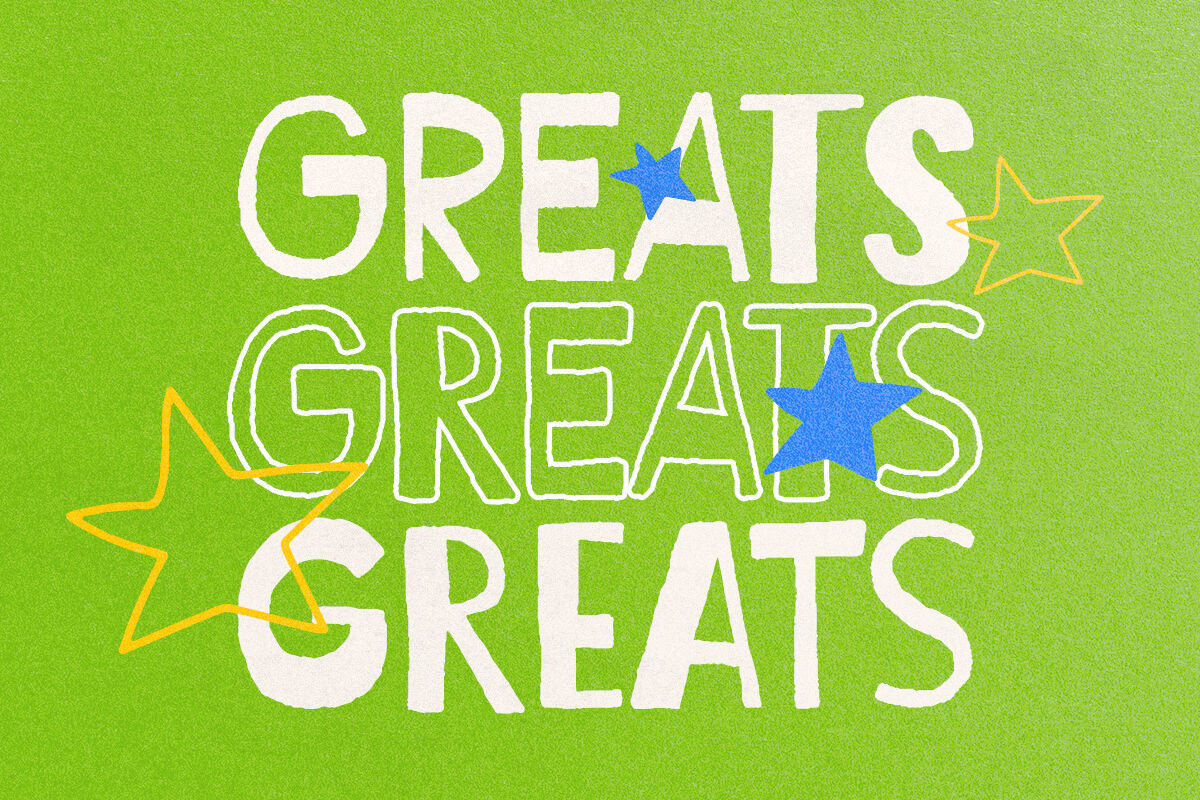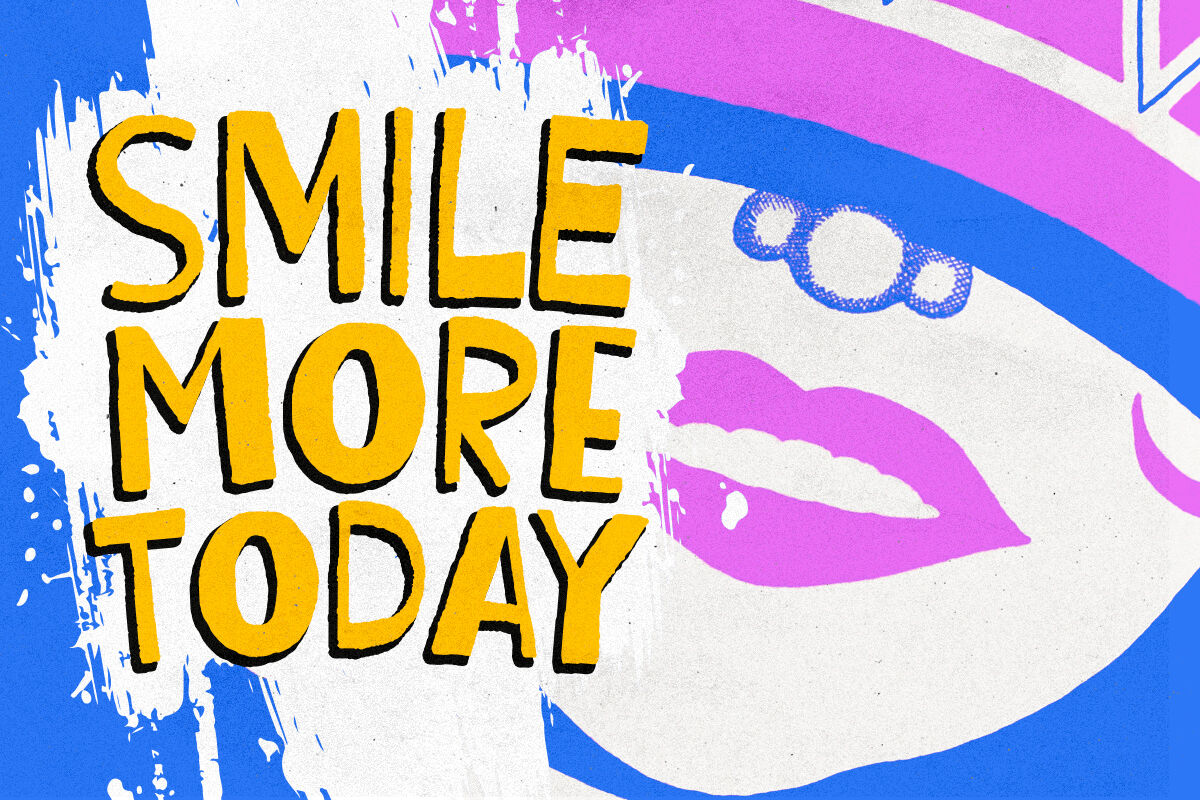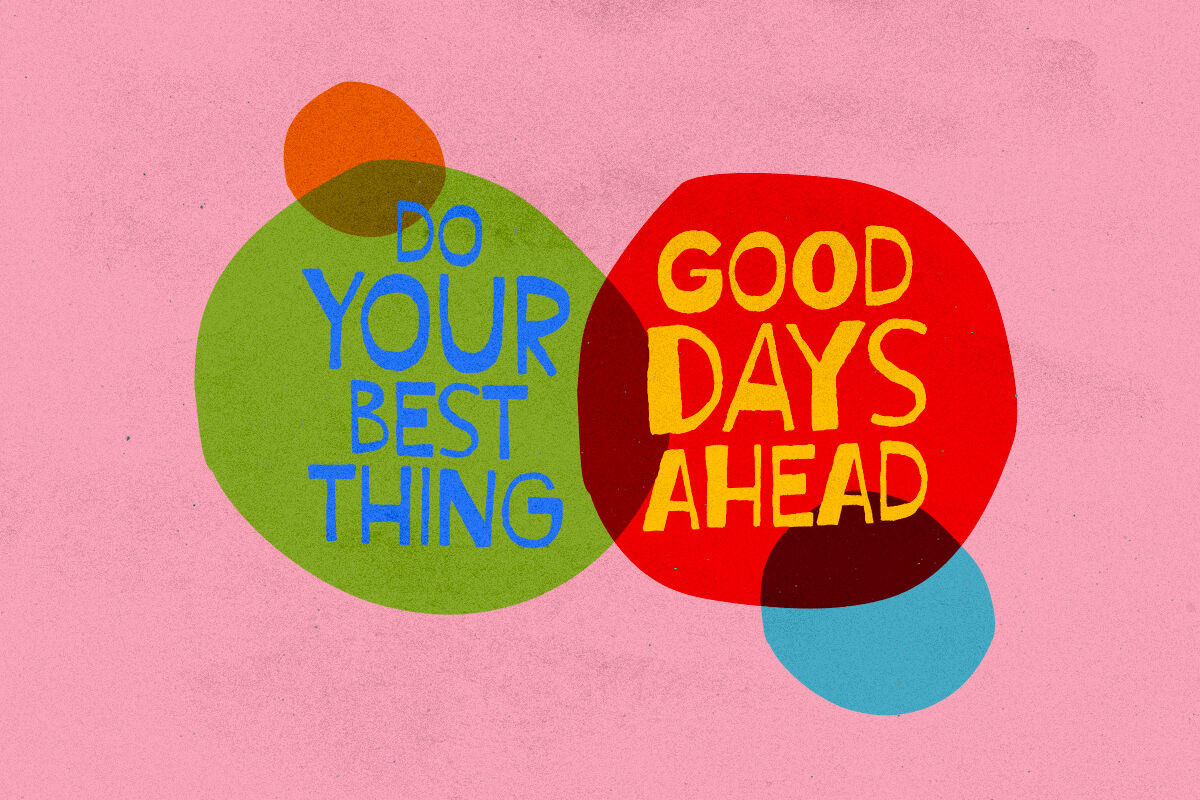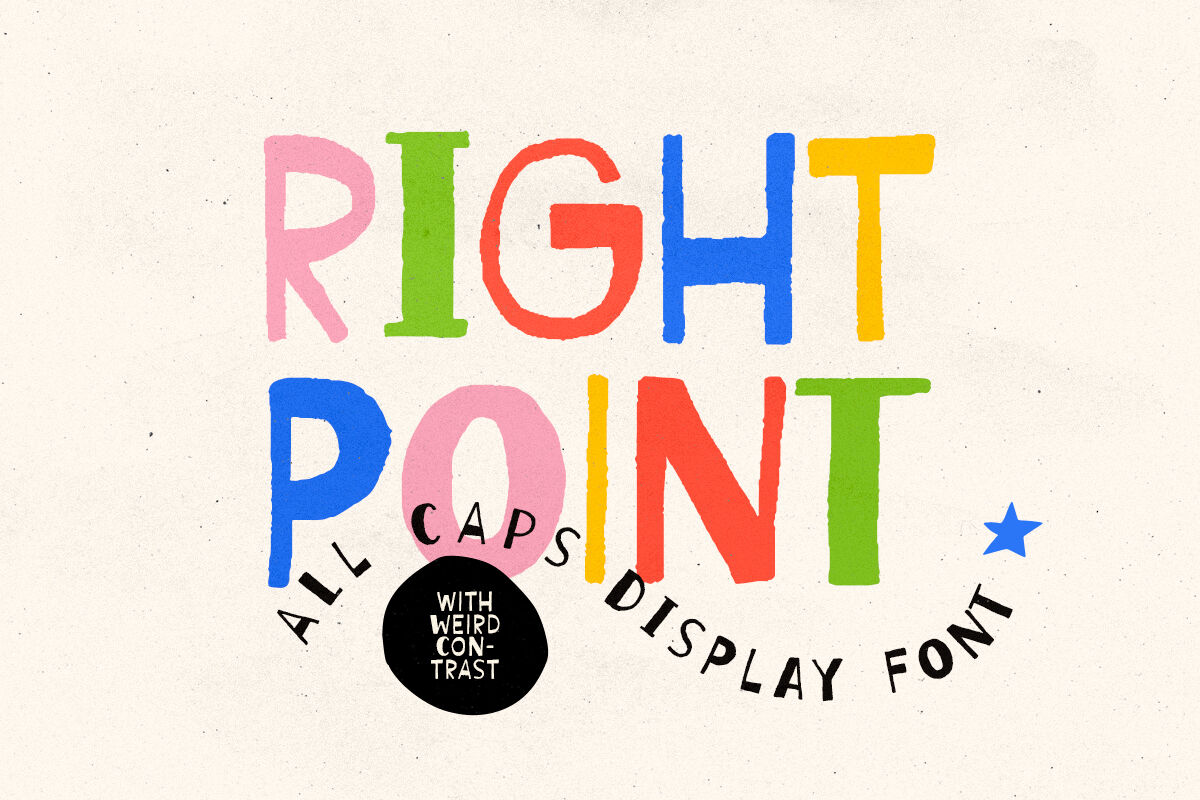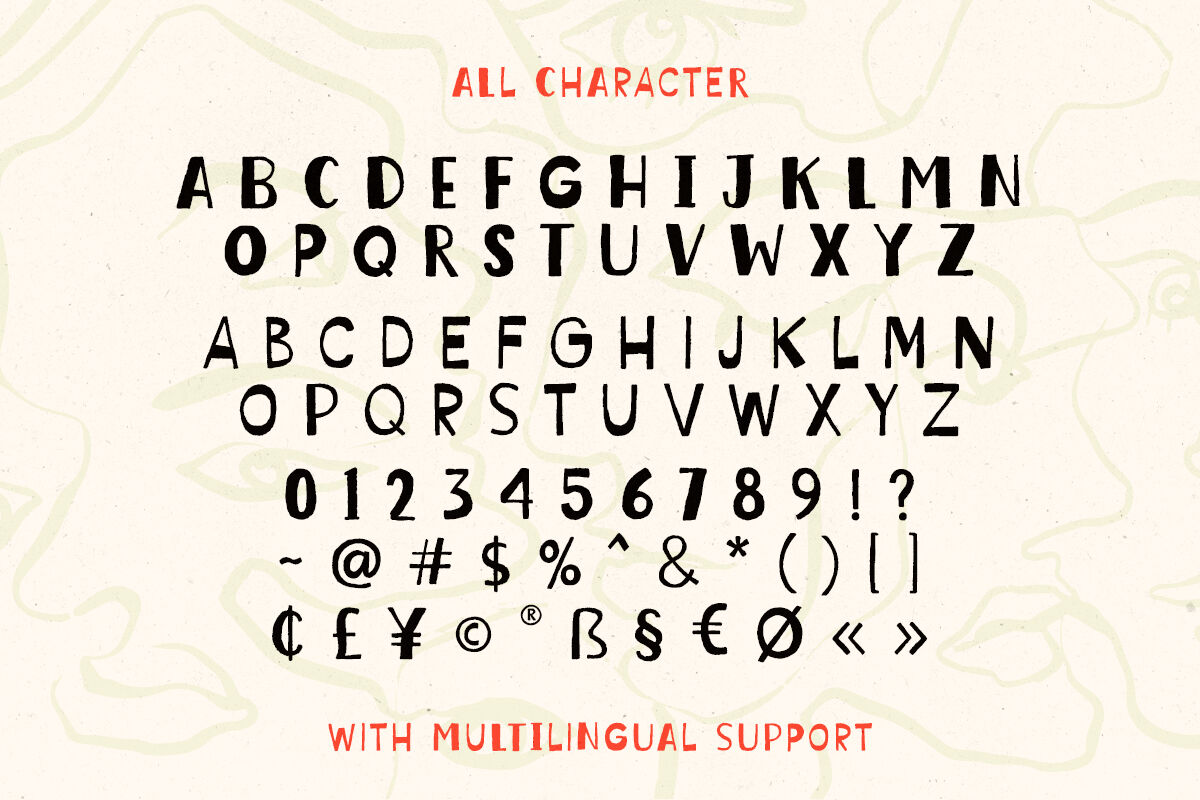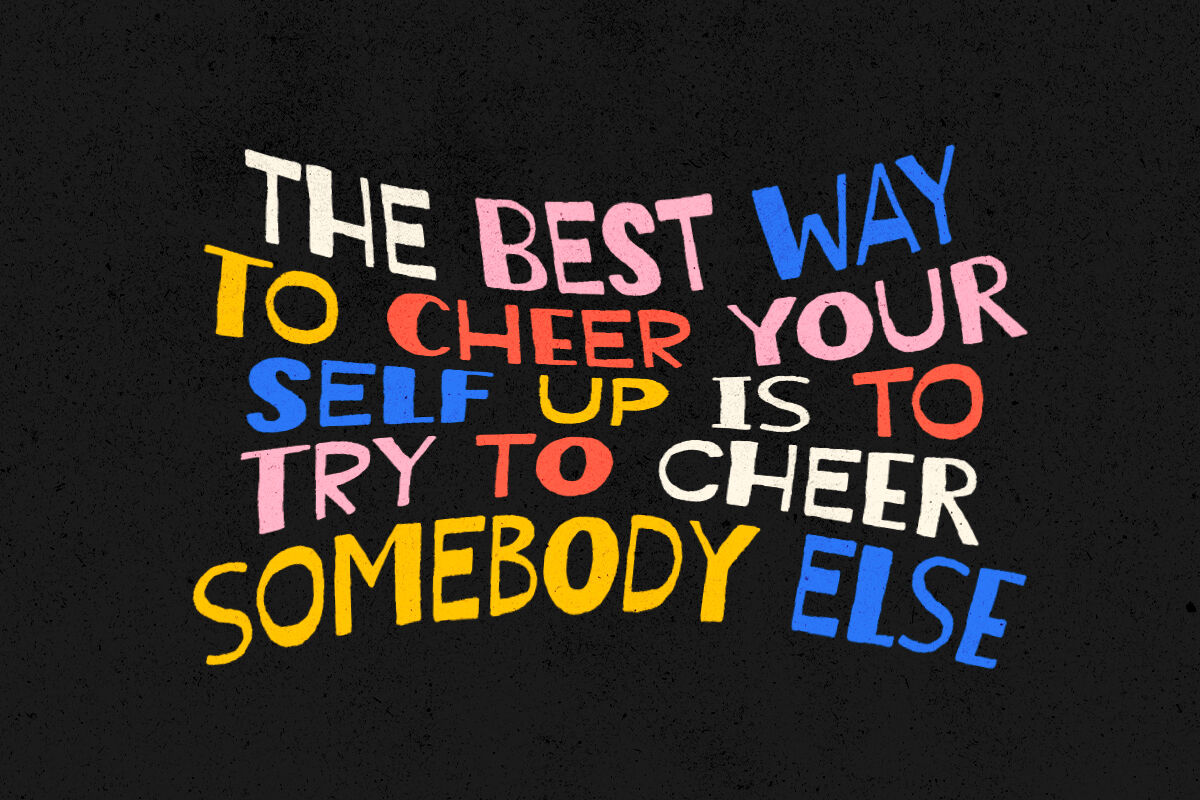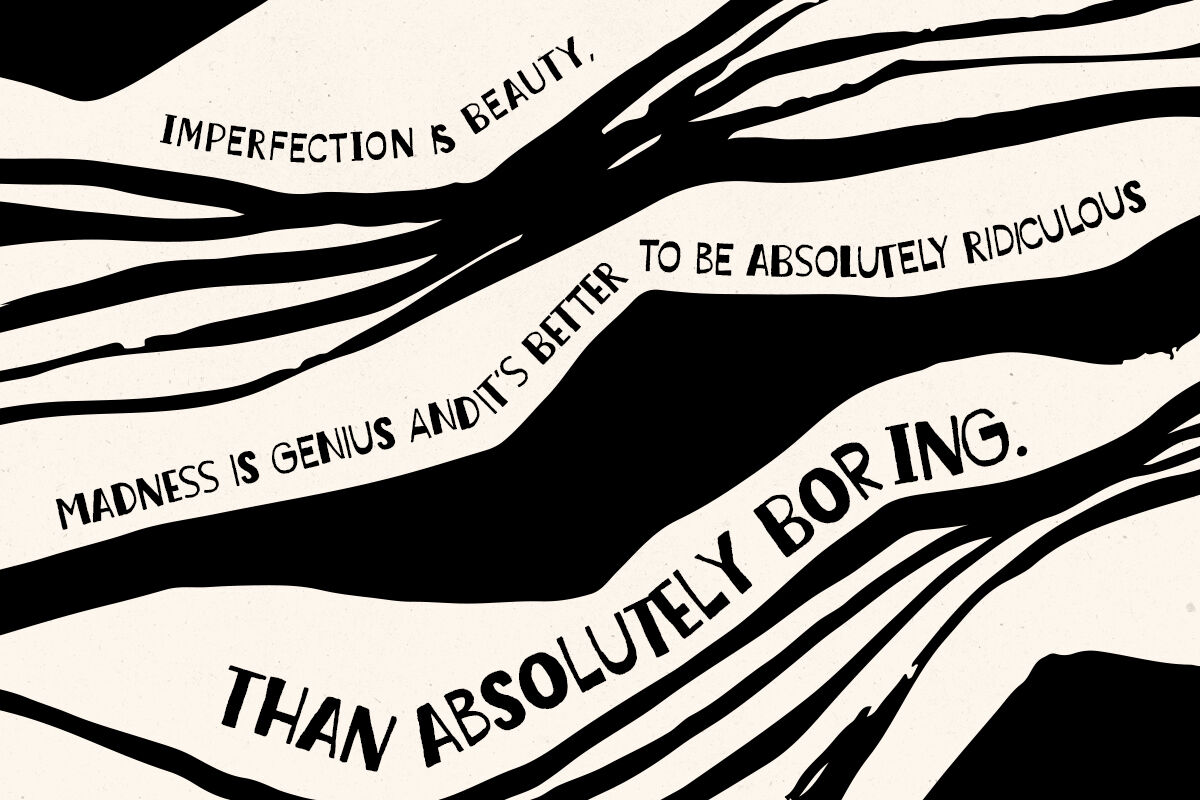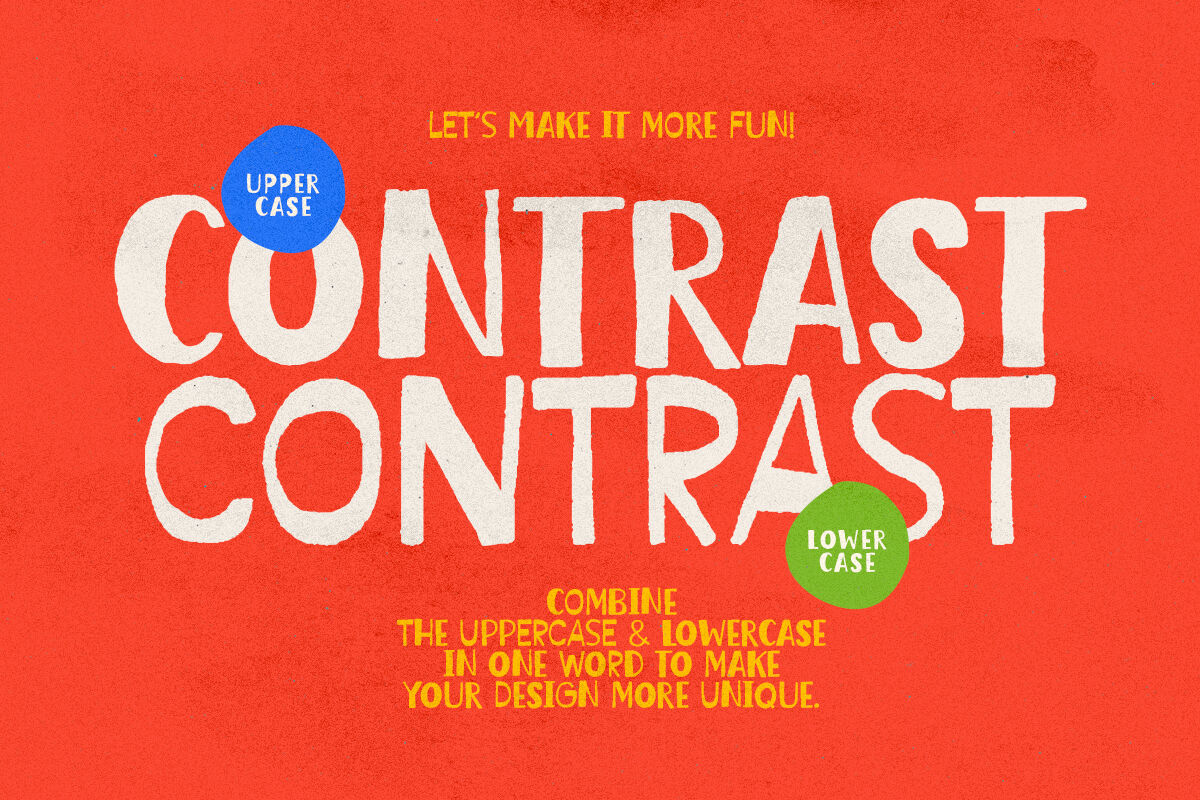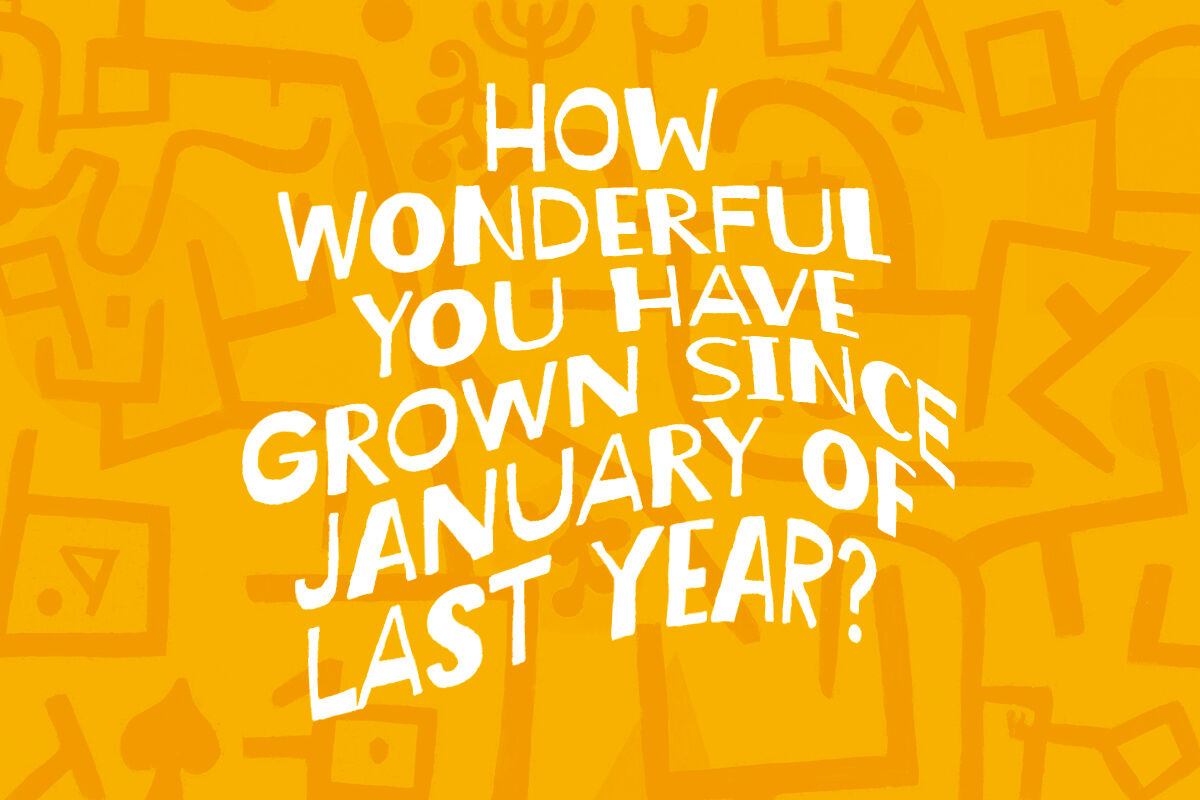
Right Point - All Caps Display Font
Right Point is an all caps display sans that have weird shape and contrast. With the rough and handmade looks, this font will make your project have an artistic touch. You can use this font for any purposes especially the project that needs weird and bold visual. This font also suitable for your book cover and kids stuff. With the different shape of the lowercase and uppercase, you can combine them in one word to make your design looks more stunning. Right Point also support multi language!